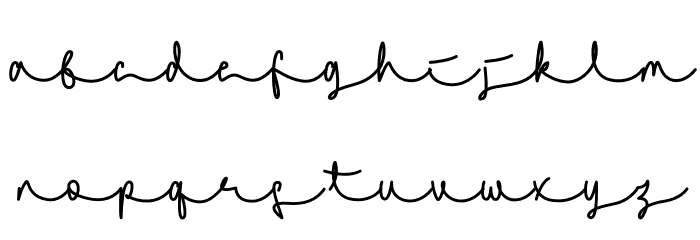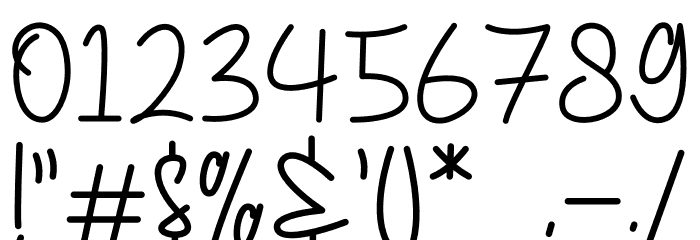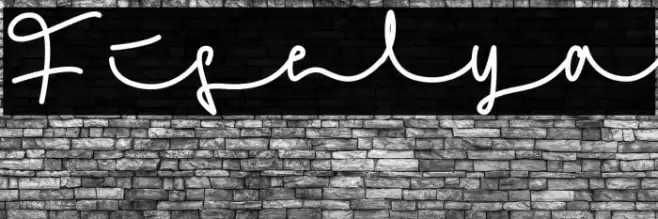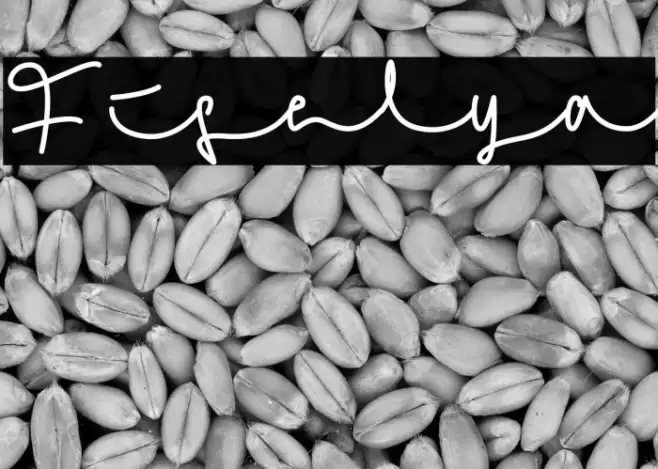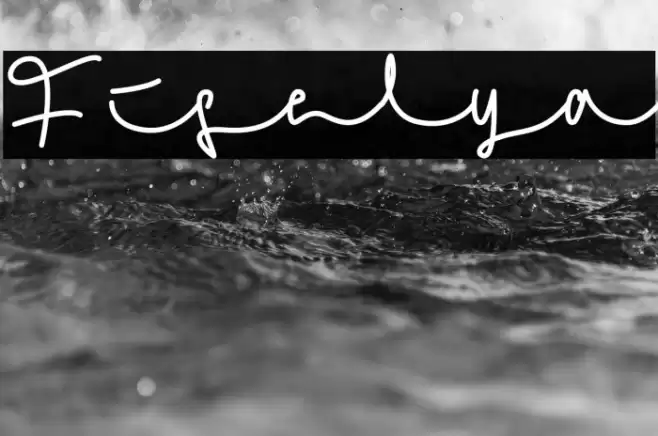
Fiselya Font
This font features a playful and casual handwritten style, characterized by its fluid and connected letterforms. The uppercase letters are bold and expressive, with a slight slant that adds a dynamic feel. The lowercase letters maintain a consistent flow, enhancing the overall cohesiveness of the design. Numbers are rounded and easy to read, while special characters retain the same whimsical quality. This font is perfect for projects that require a personal touch, such as invitations, greeting cards, or branding materials that aim to convey friendliness and approachability.
A playful, handwritten font with fluid, connected letterforms and a casual style.
- Proposed Projects: Ideal for invitations, greeting cards, personal branding, and any project needing a friendly, approachable feel.
- Overall Style: Casual, Playful
- Use Case: Headlines, Logos, Invitations